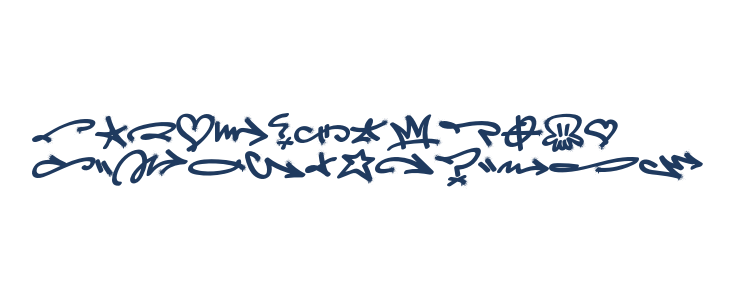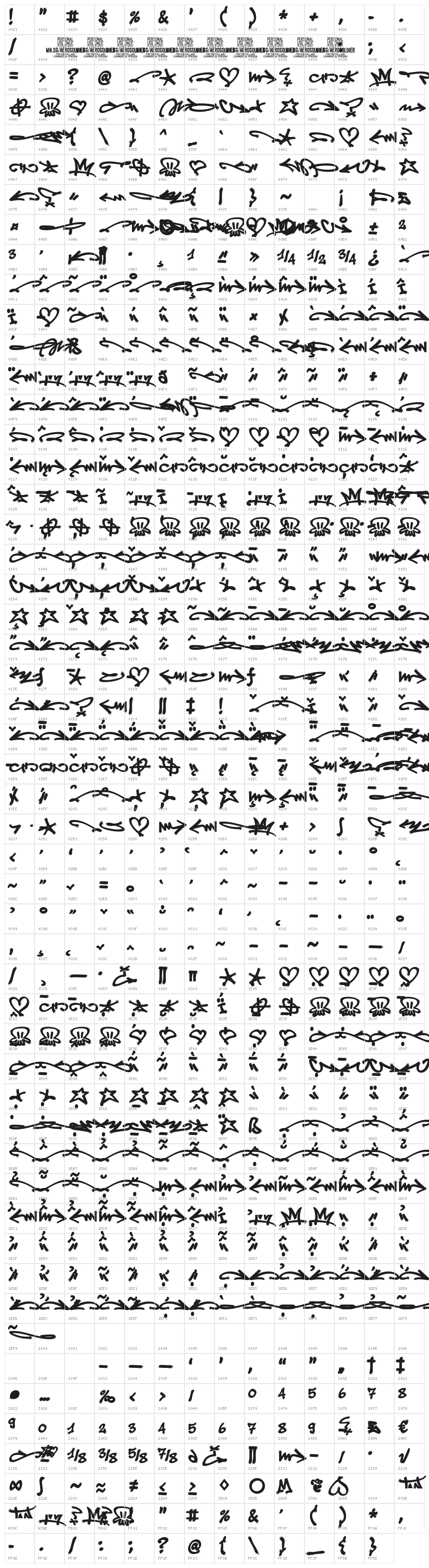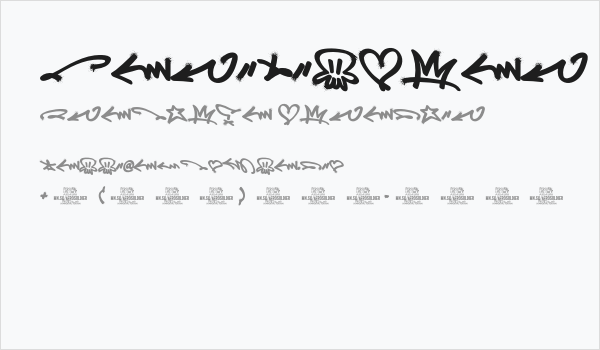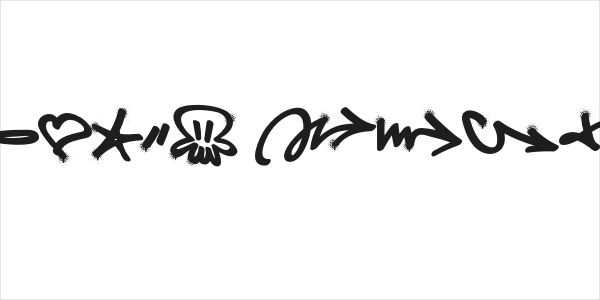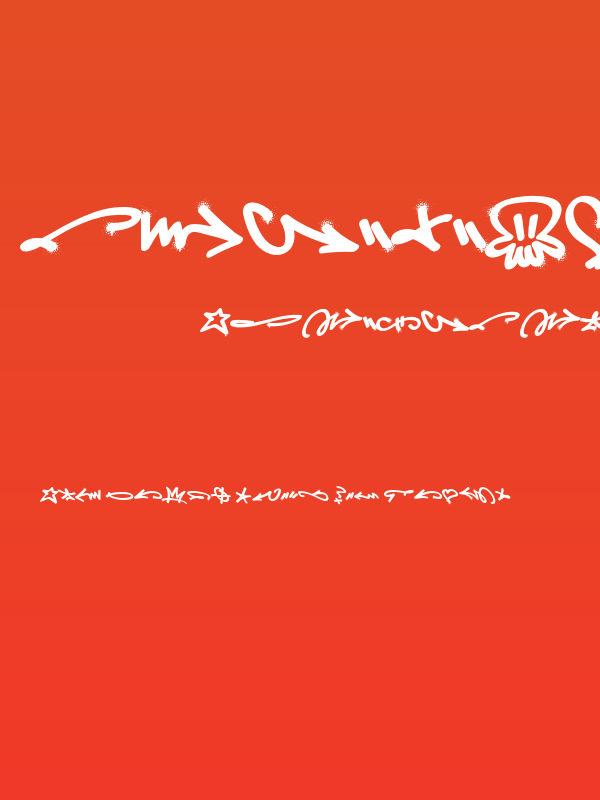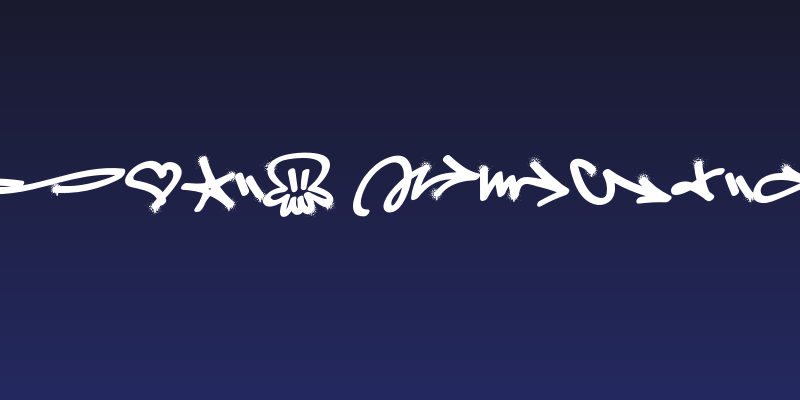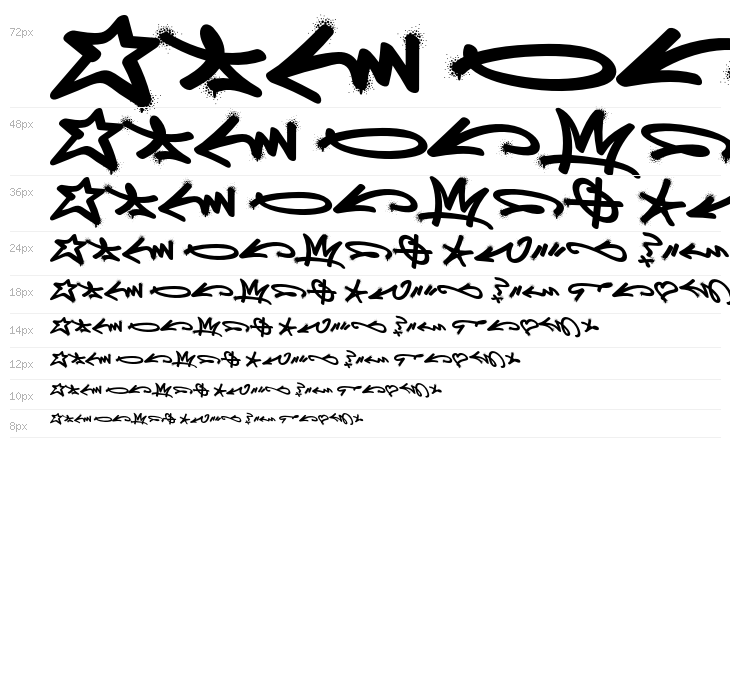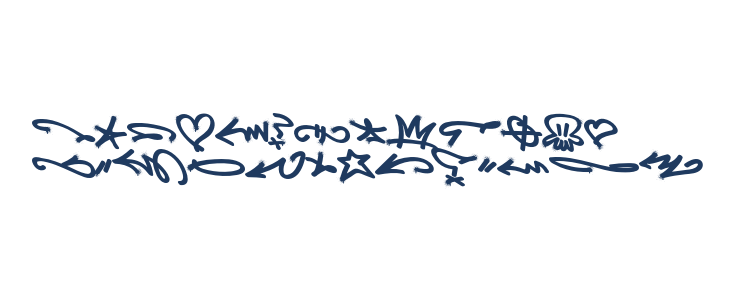
Aerosoldier Symbol PERSONAL Regular Font
Aerosoldier Symbol PERSONAL Regular Description
A highly decorative and graffiti-inspired symbol font featuring bold, hand-drawn shapes, arrows, hearts, stars, and abstract forms with a spray-paint texture. The characters are expressive and irregular, with a playful and urban aesthetic.
| Overall Style | Decorative, Urban, Graffiti |
| Use Case | Logos, Posters, Headlines, Artistic projects |
| Proposed Projects | Street art posters, urban branding, music album covers, event flyers, youth-oriented designs, digital stickers. |